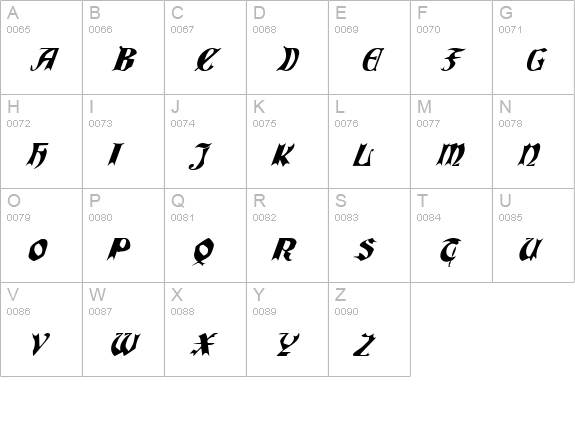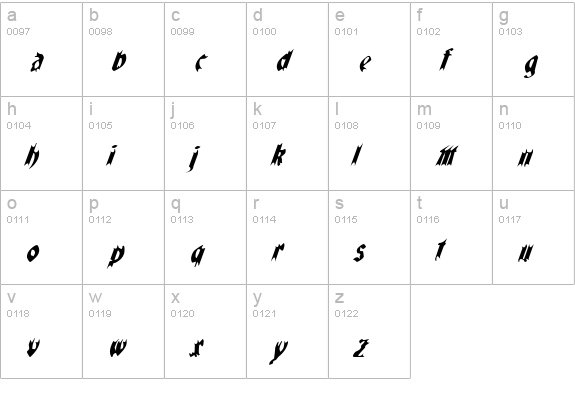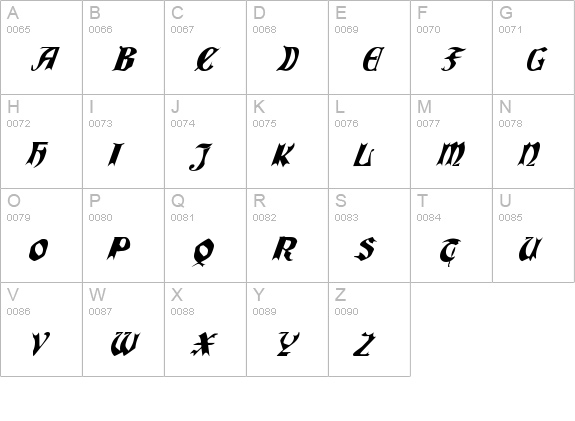
QuaelGothicItalicsCondensed Font Details
QuaelGothicItalicsCondensed font is a stunning addition to any typographic project. With its sleek and sophisticated design, this font exudes a sense of elegance and modernity. Its condensed form adds a touch of sophistication and allows for more text to be displayed within limited space, making it perfect for headlines, titles, and other specialized design projects. The italicized style of QuaelGothicItalicsCondensed font adds a unique flair to any text, giving it a dynamic and eye-catching appearance. Whether used in print or digital designs, this font is sure to captivate the viewer's attention and leave a lasting impression. But what sets QuaelGothicItalicsCondensed font apart is that it is not only visually stunning, but also available for free. That's right, you can download this remarkable font without spending a dime. Simply head over to FontsMarket.com, where you can find this font and many others in their extensive collection. Whether you are a professional designer looking to elevate your projects or an enthusiast looking to add a touch of style to personal creations, QuaelGothicItalicsCondensed font is a must-have. Its sleek design, condensed form, and italicized style make it a versatile choice for a wide range of design applications. And with its availability for free download at FontsMarket.com, there's no reason not to add this font to your collection today.